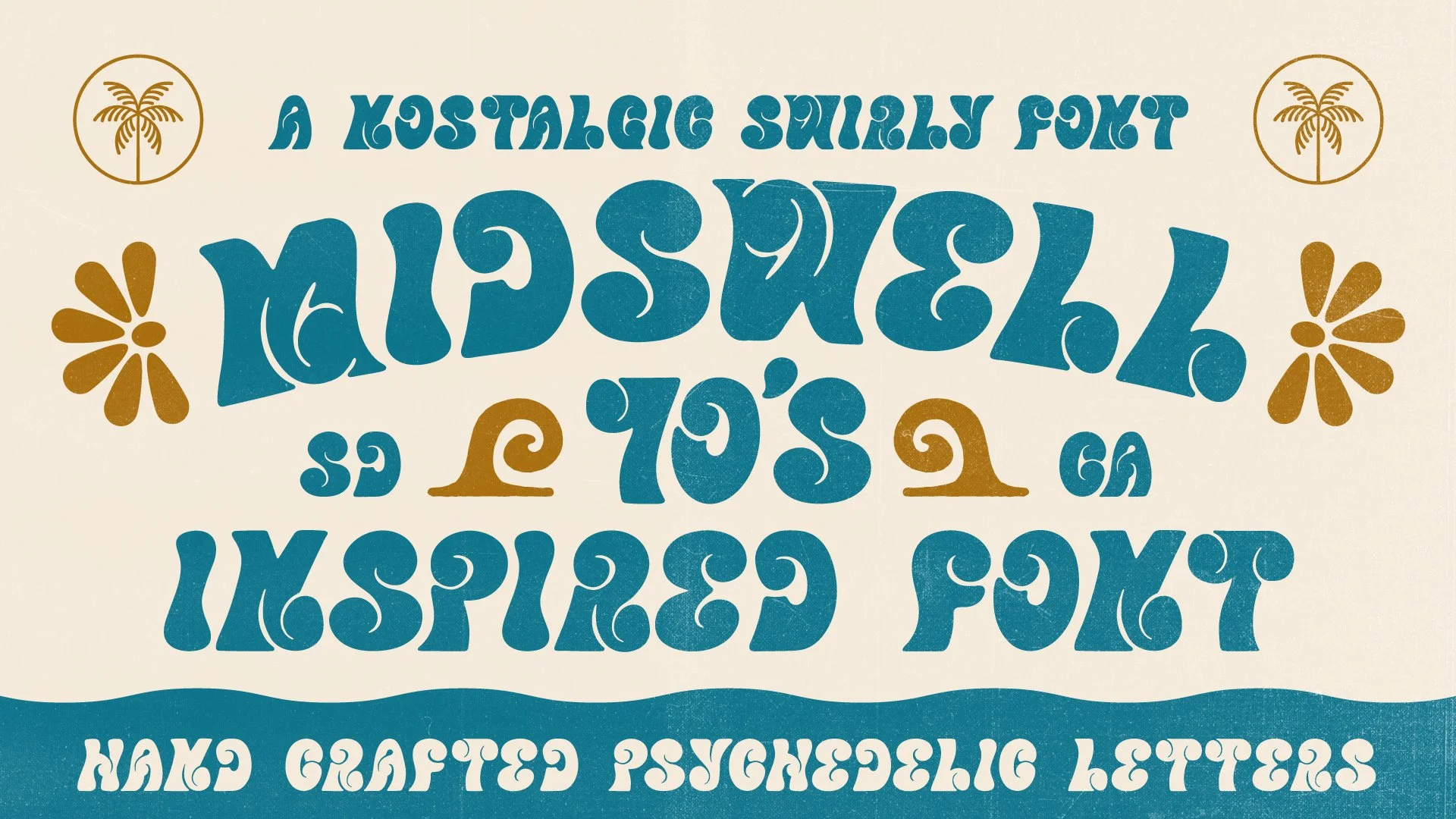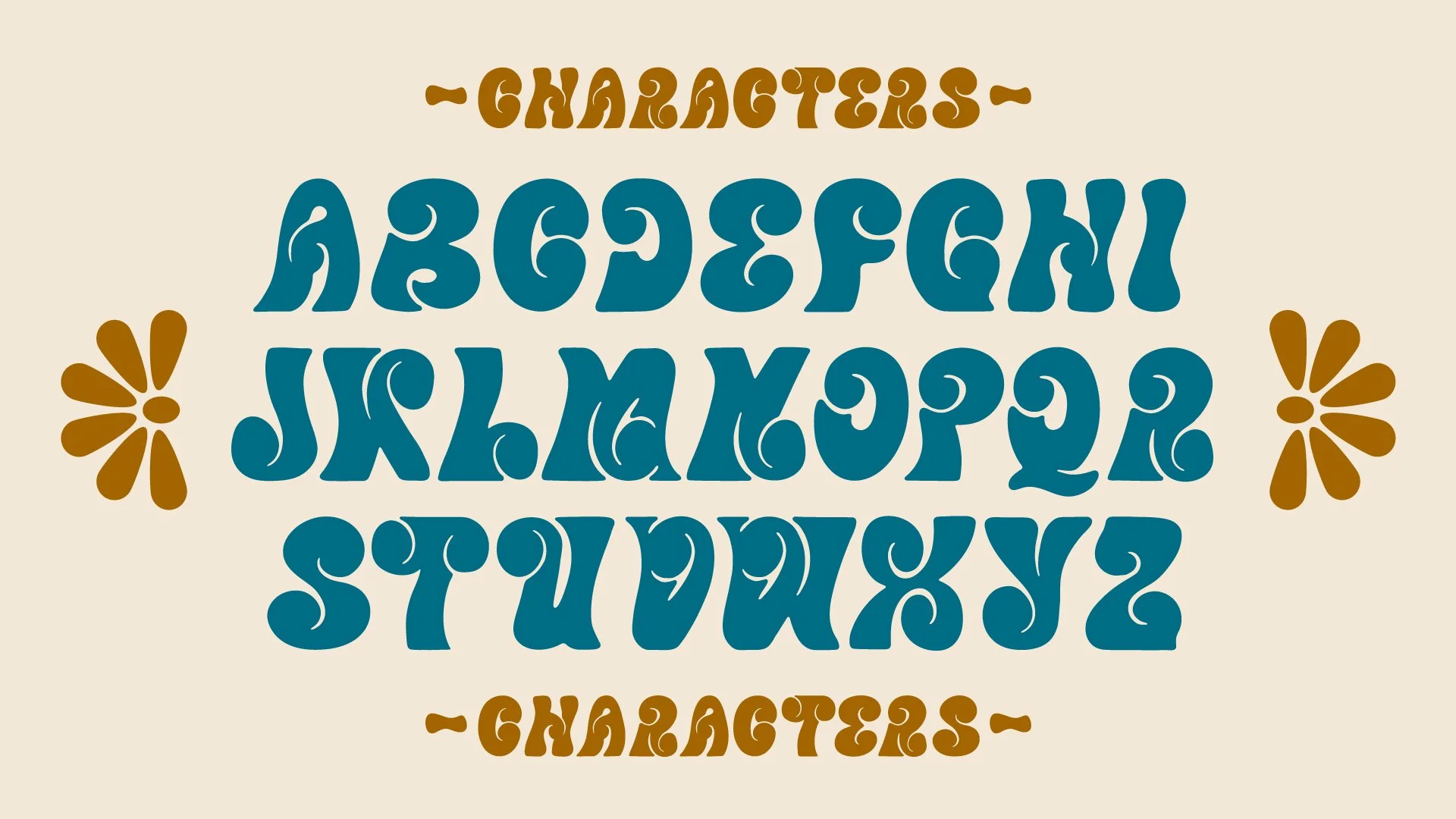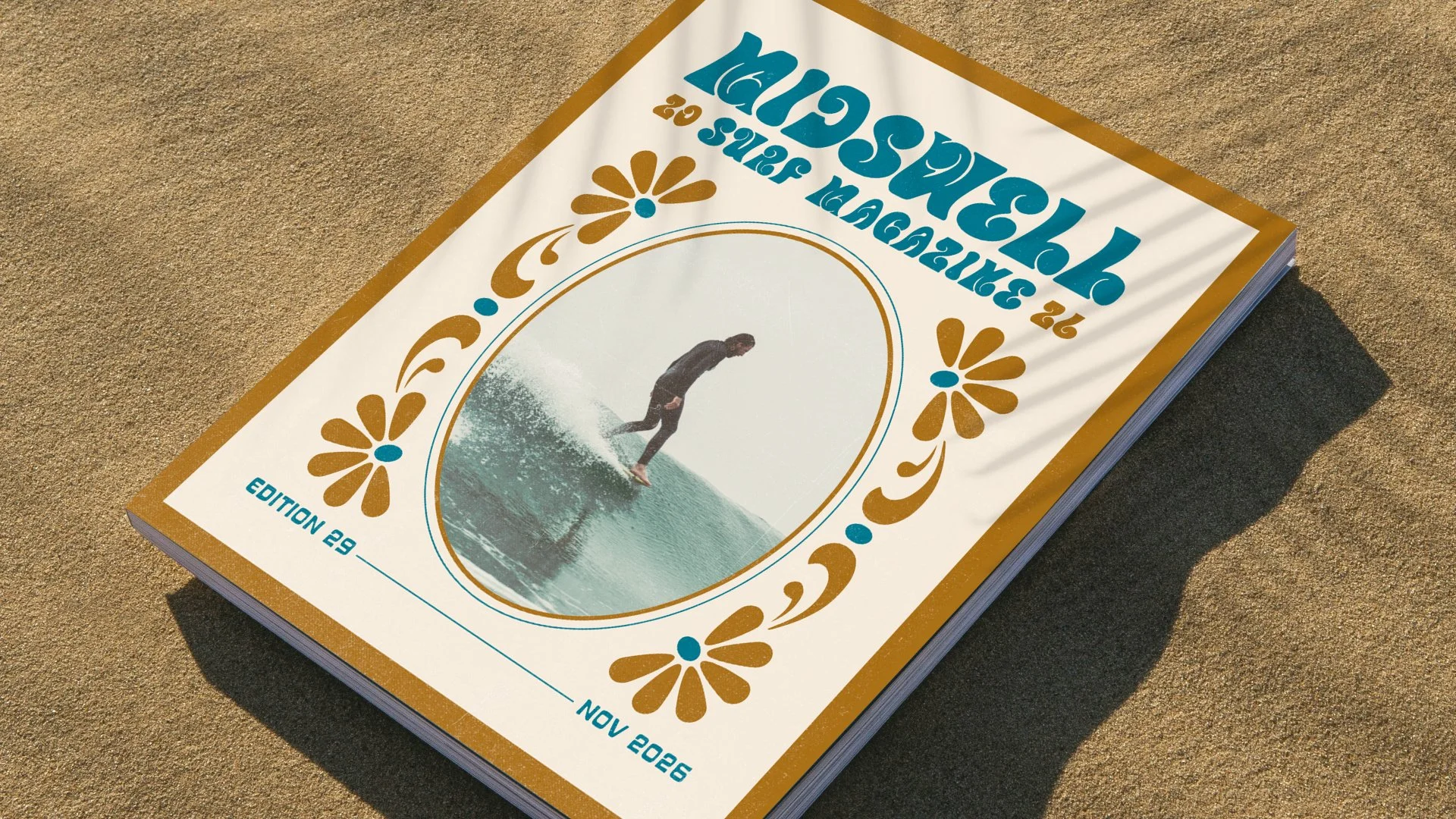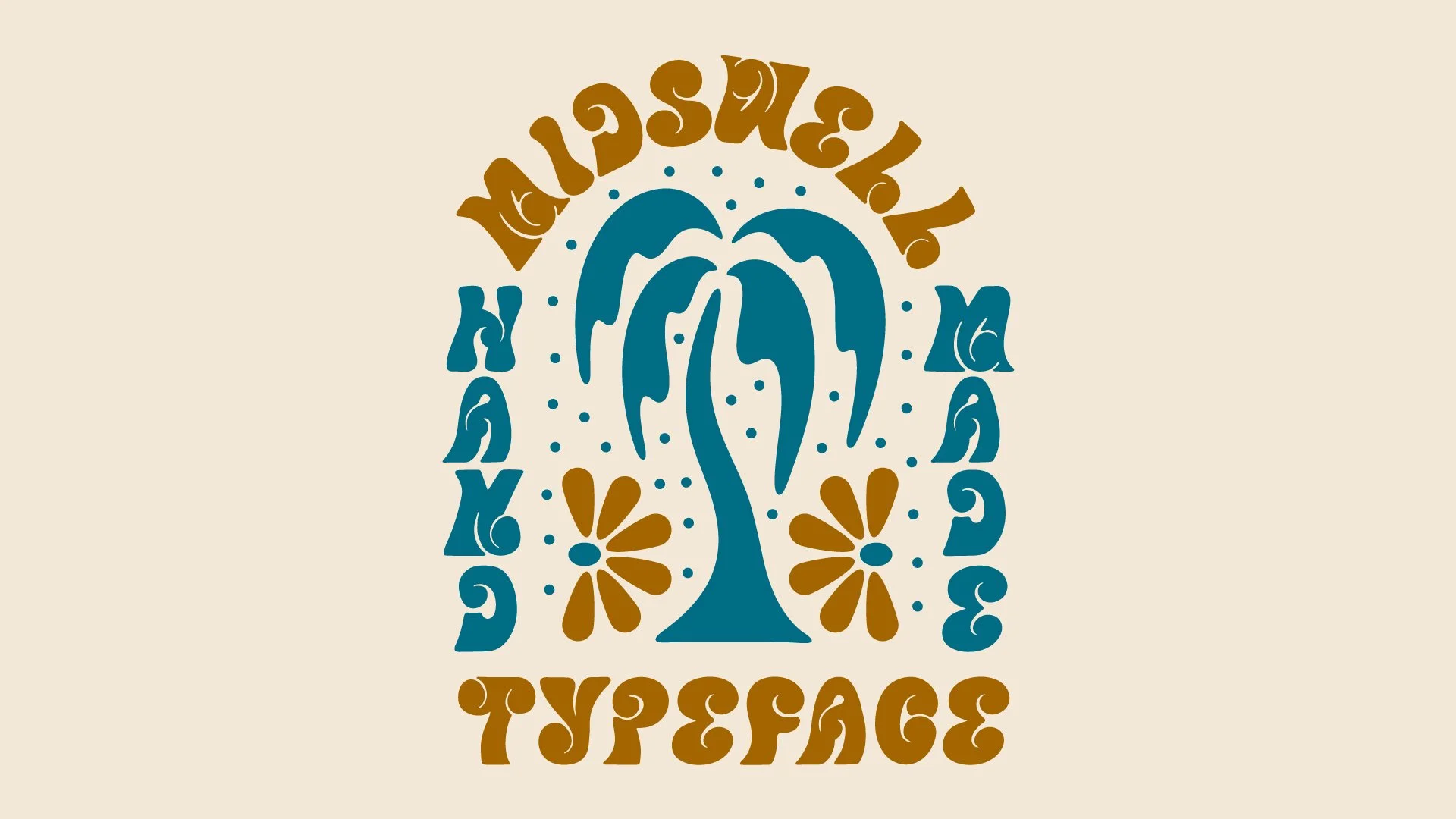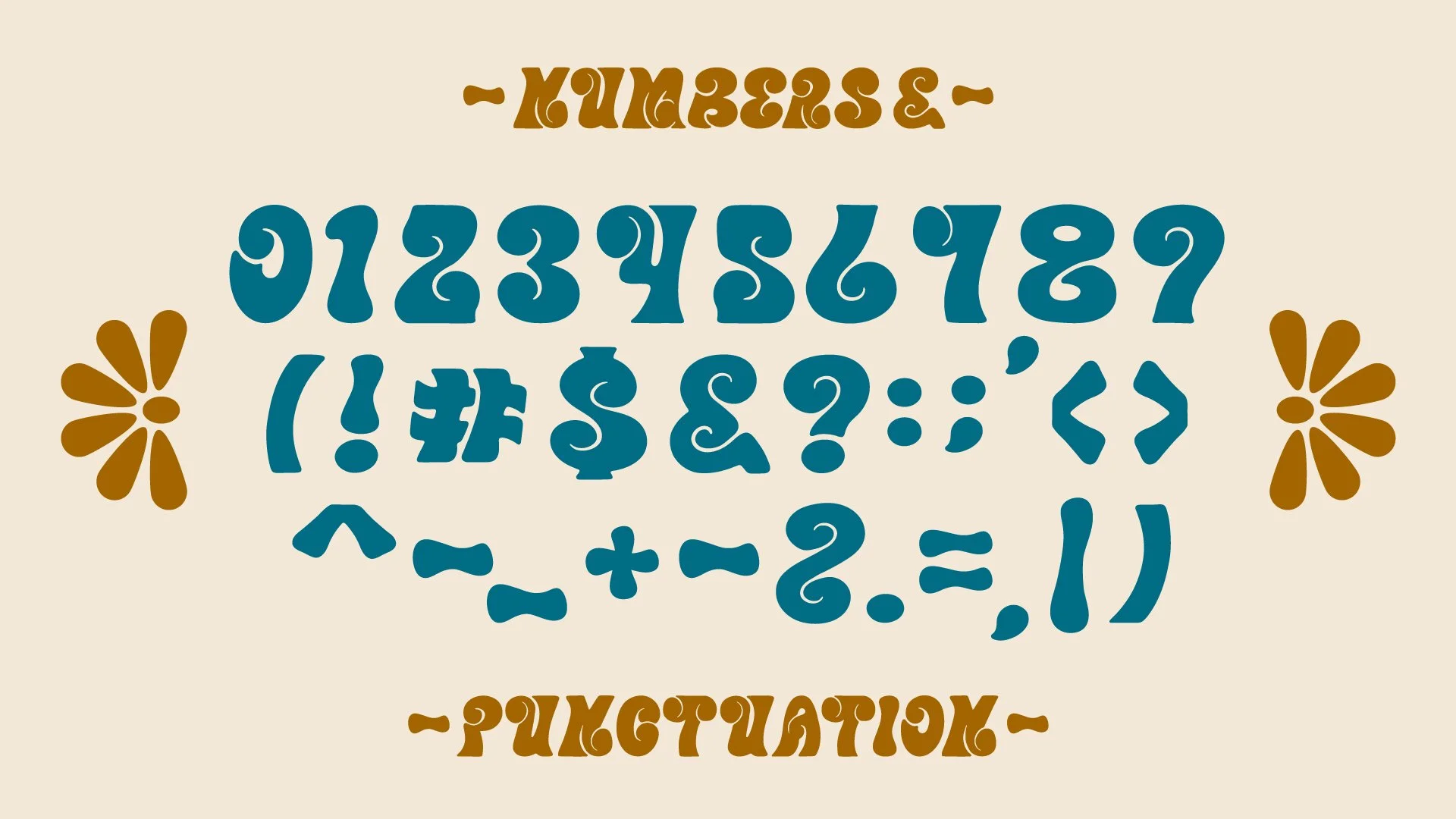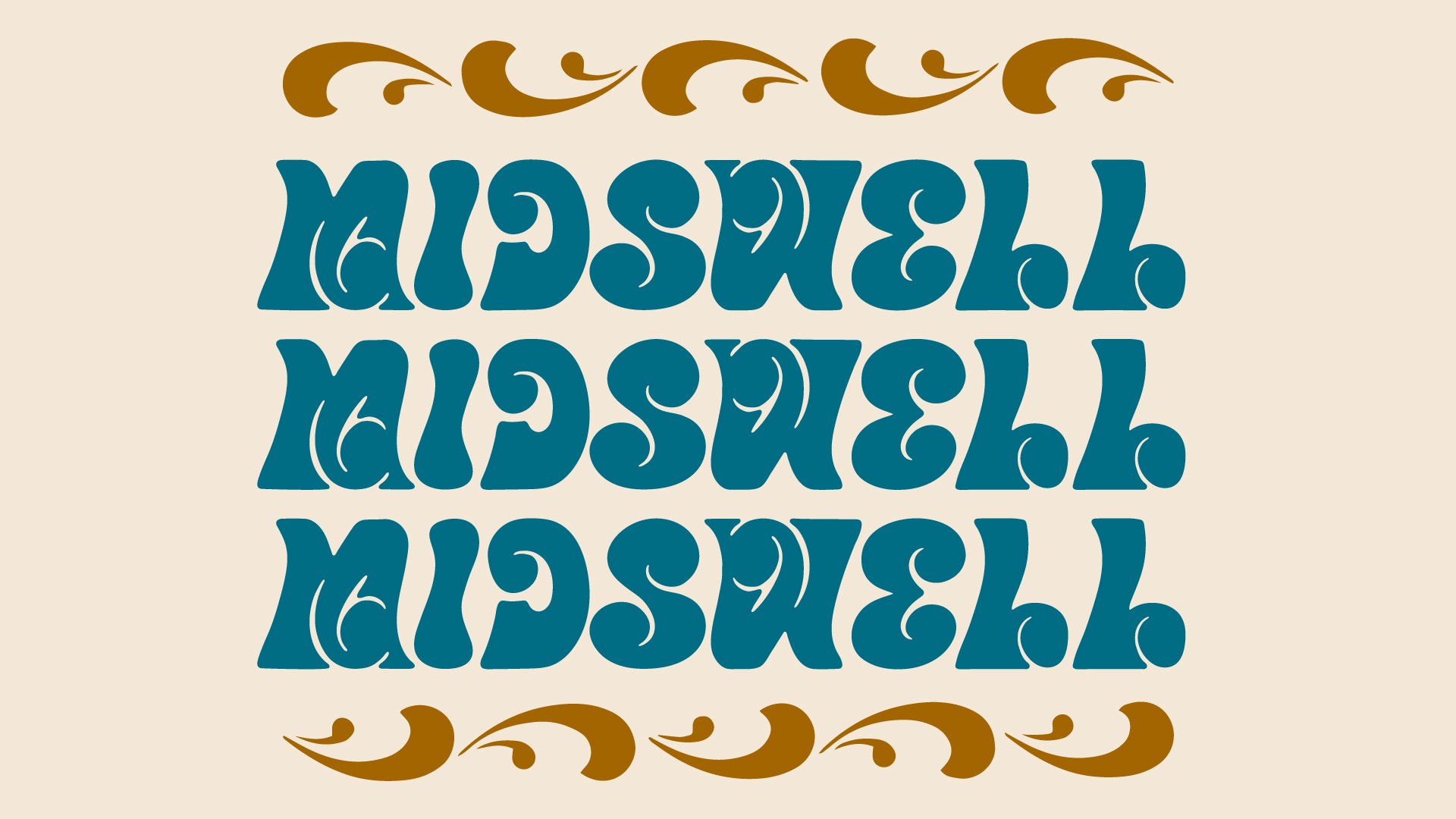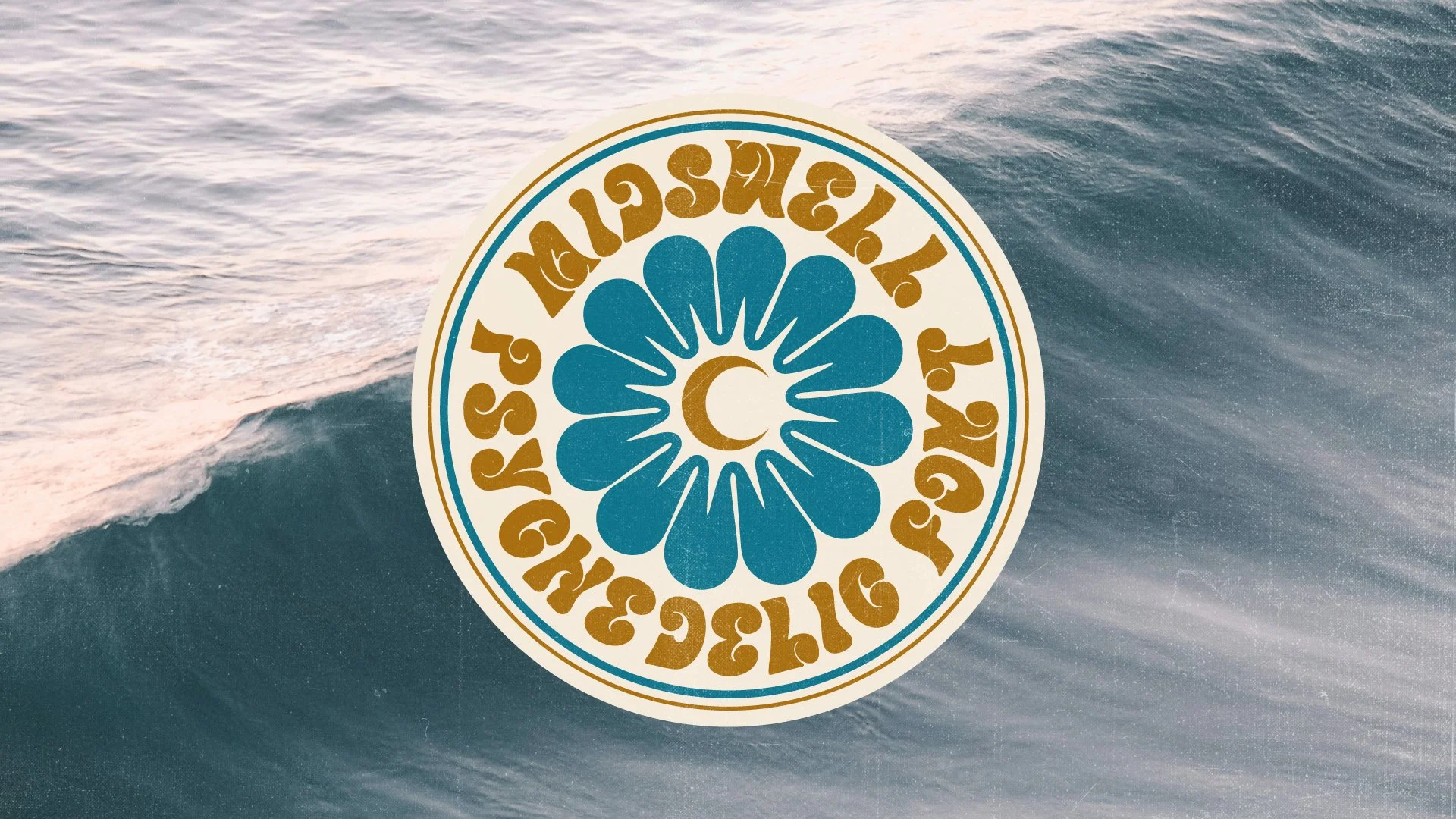
Midswell Typeface
The Midswell Typeface is here! A high-contrast, 70’s-inspired display font that features hand drawn, curvy letterforms for an organic, natural feel. I had a lot of fun making this one and I hope you enjoy it too! Grab it for only $10 before the price goes up in 48 hours!